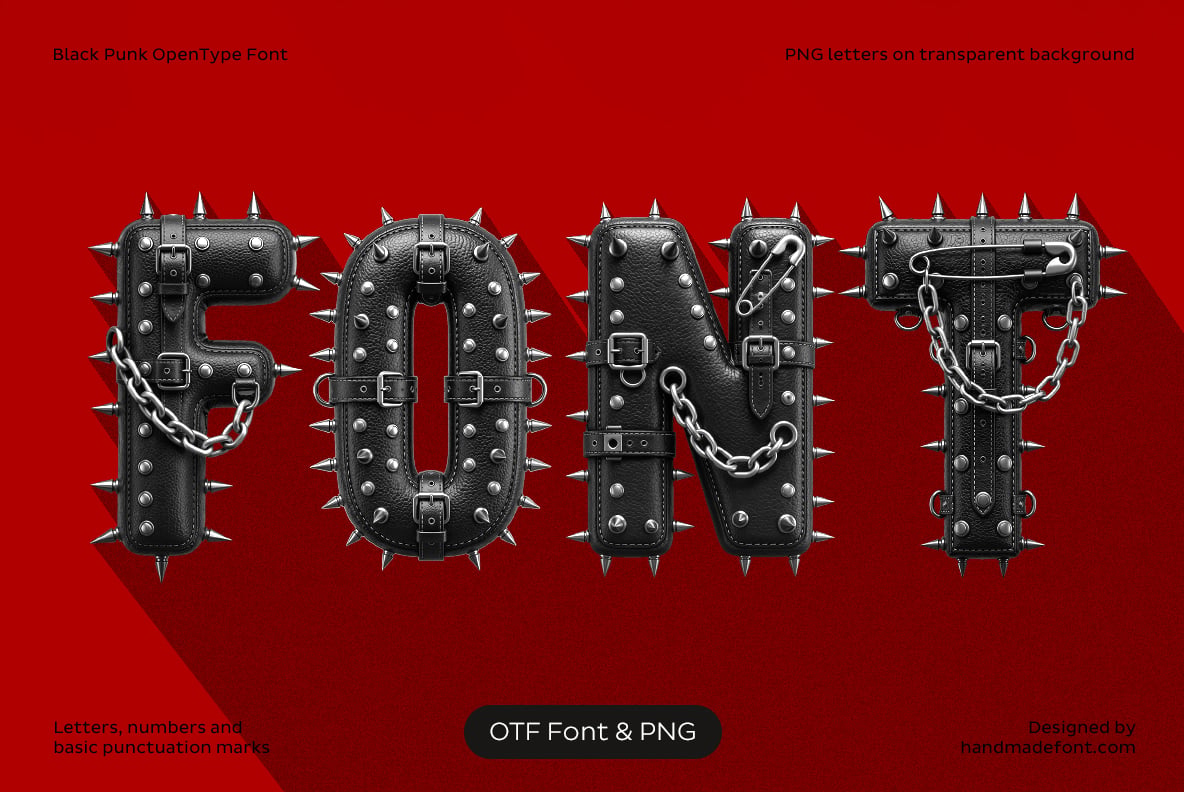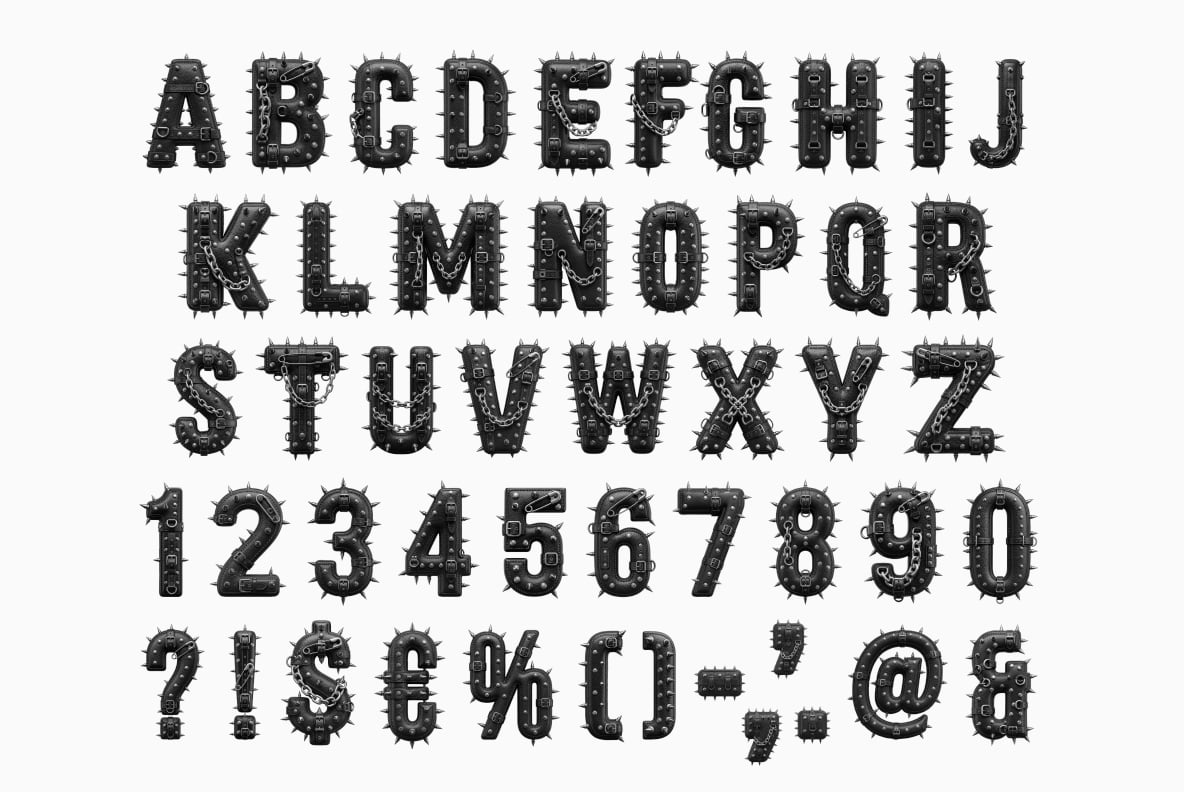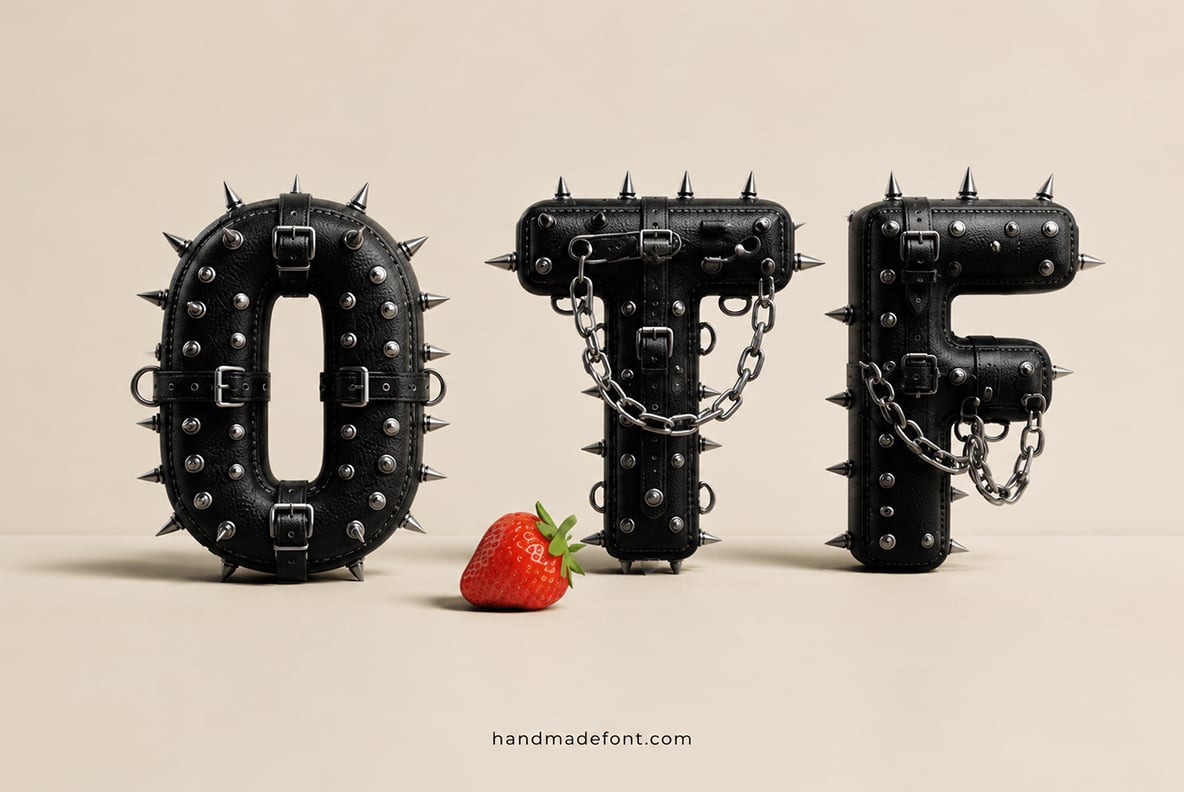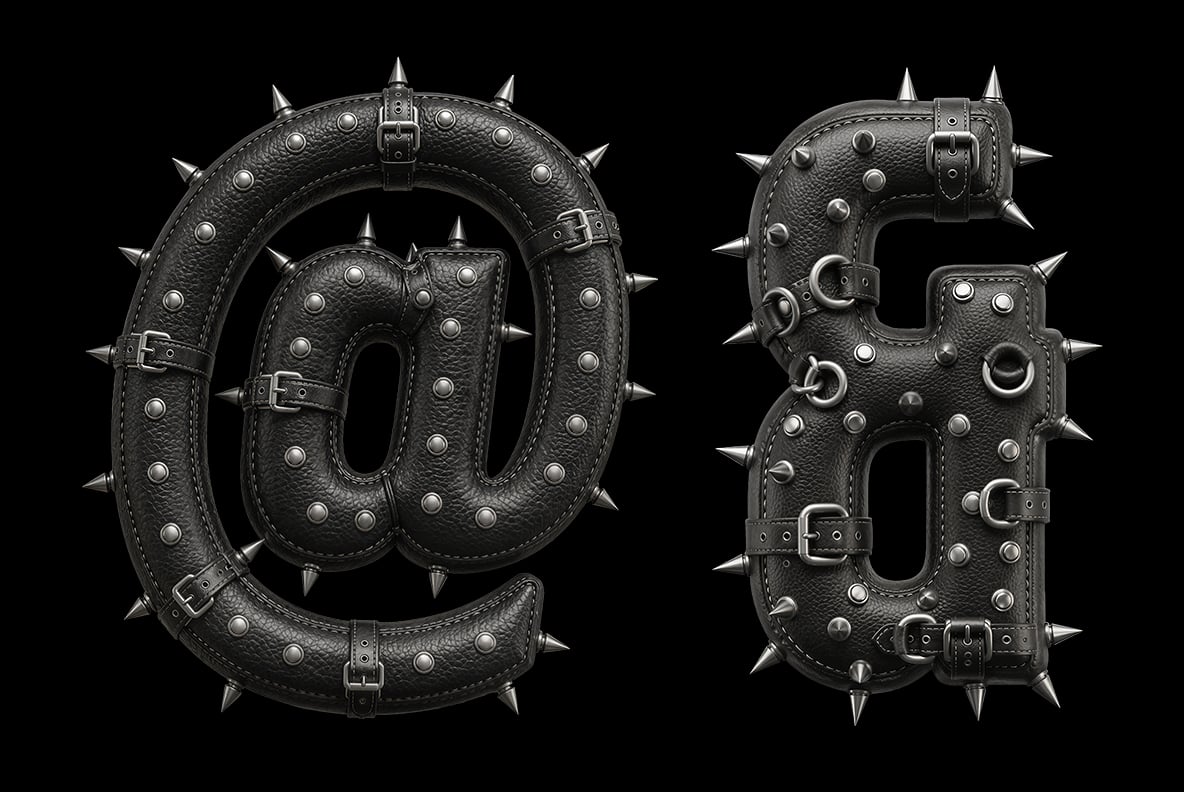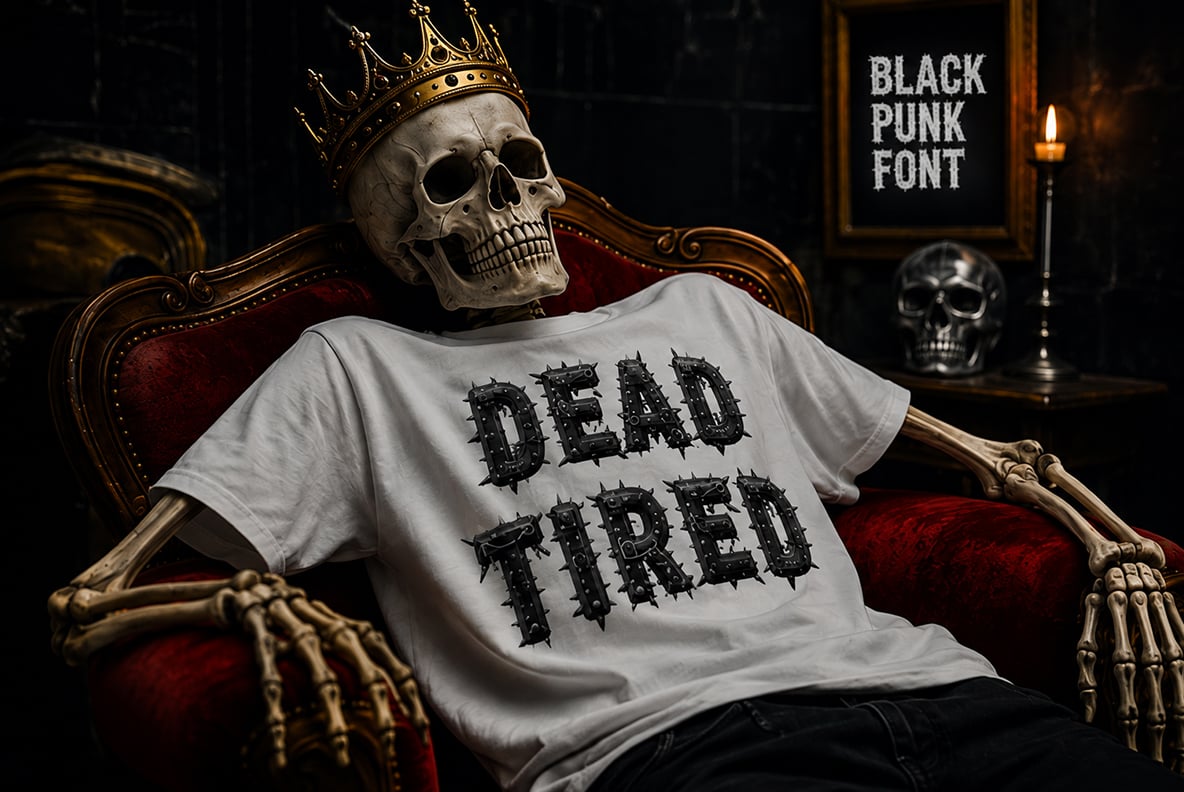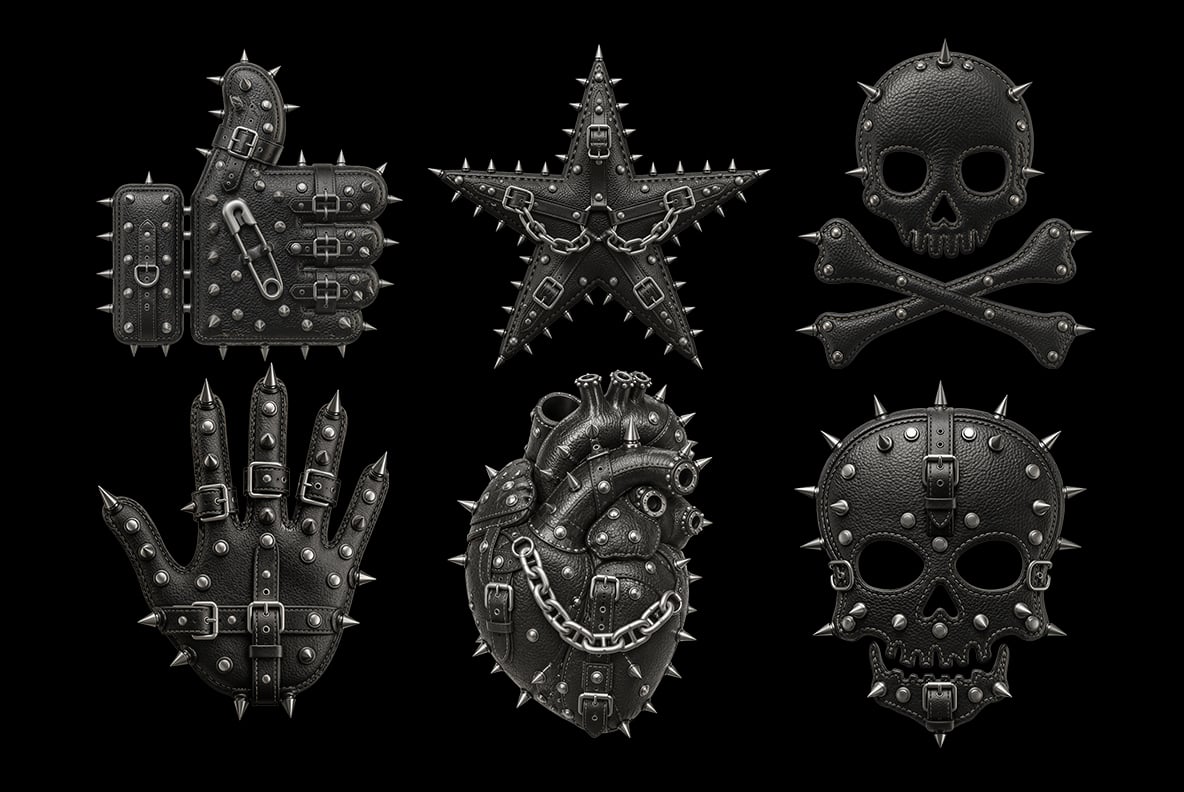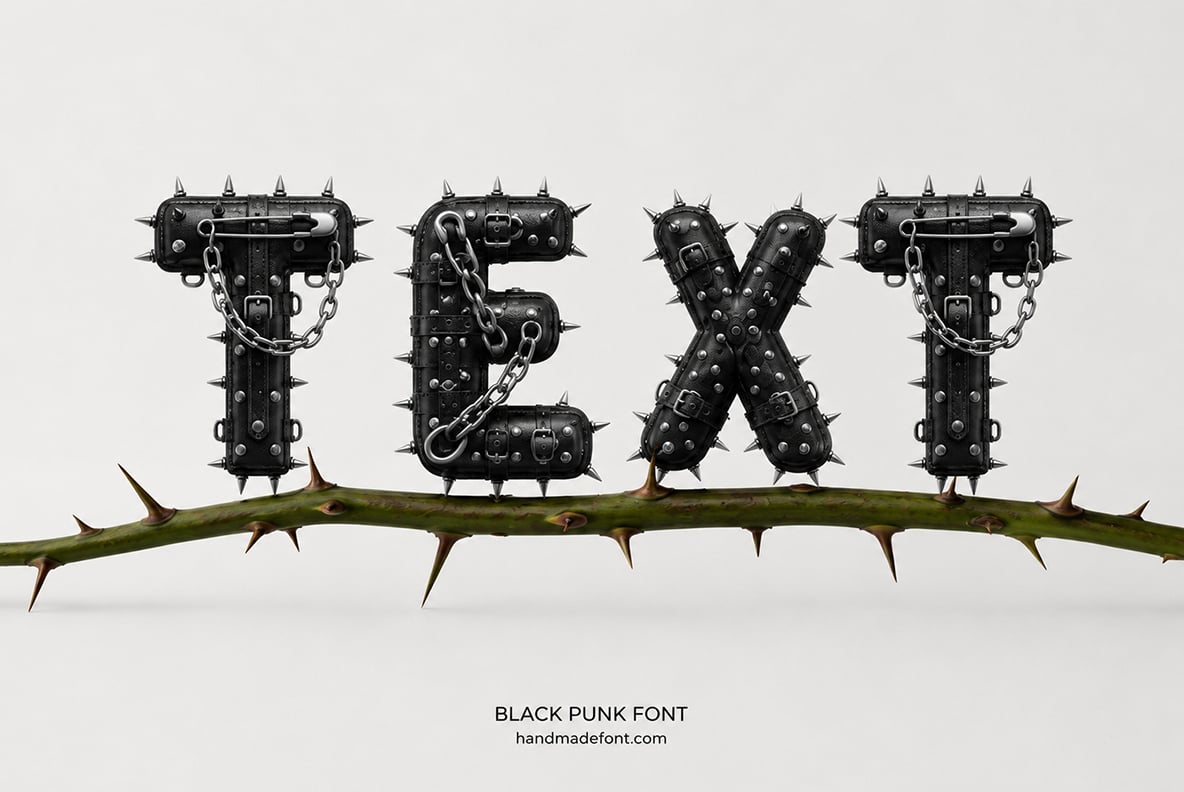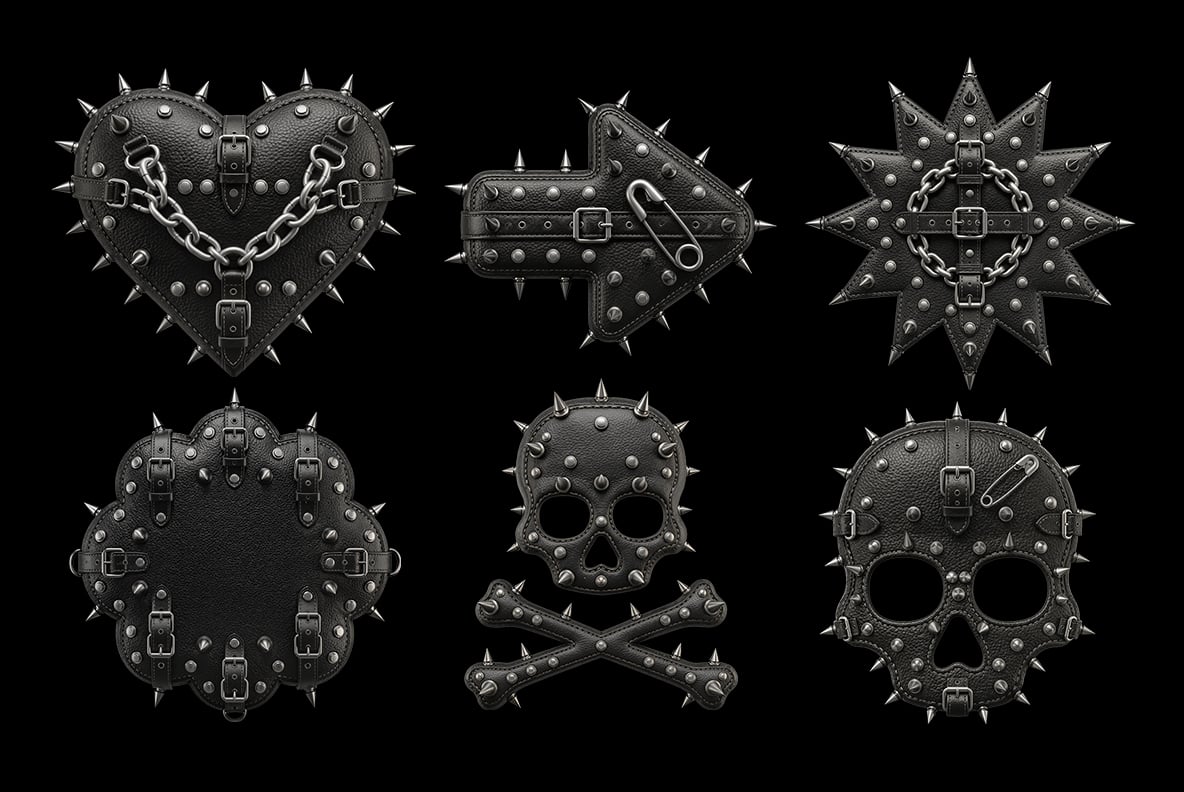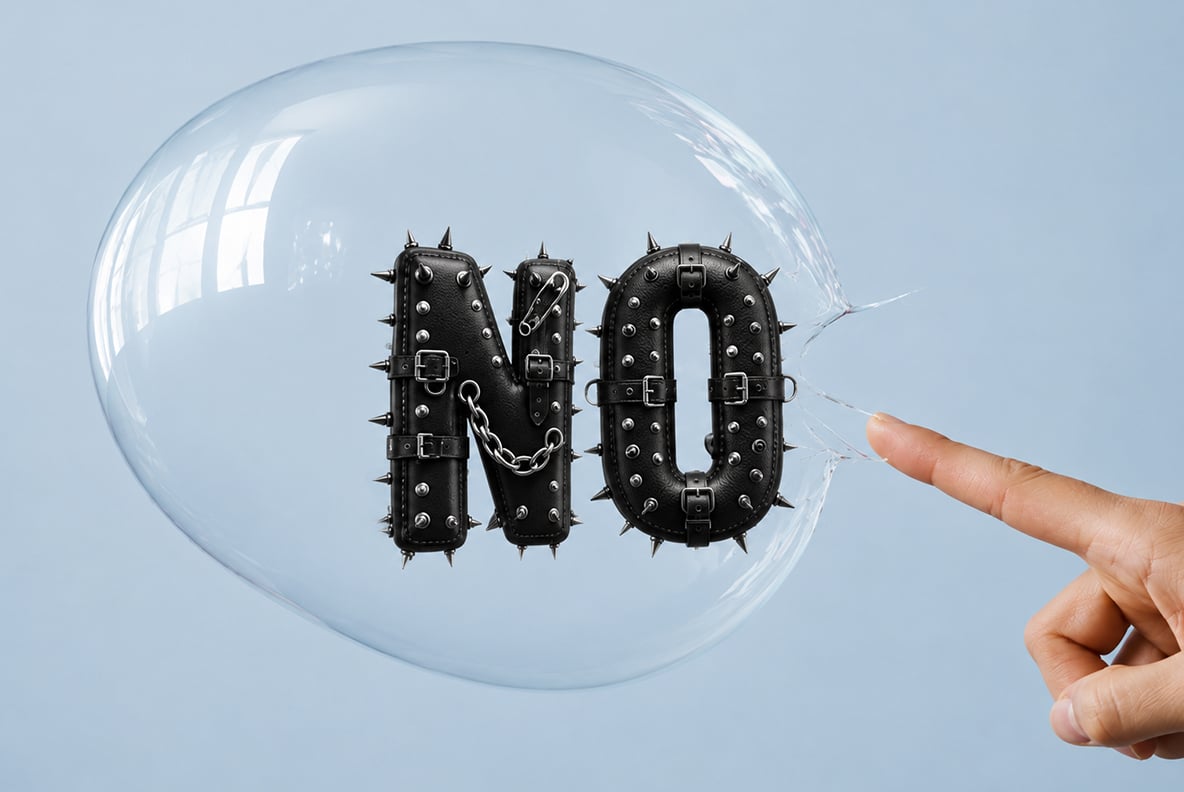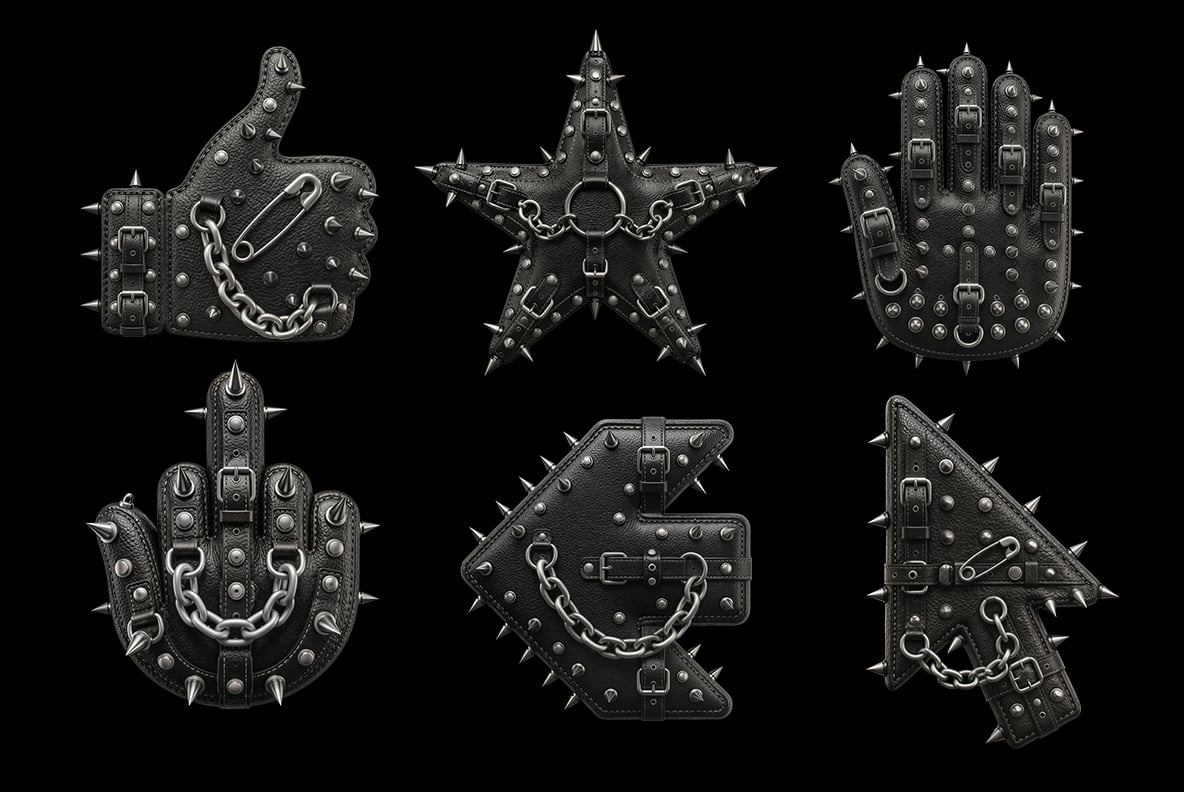
Black Punk Font
Black Punk Font is a bold OpenType typeface inspired by leather, spikes, chains, and underground punk culture. Every character combines handcrafted details with premium textures to create an aggressive yet polished look. The package includes an OTF font for easy installation plus individual PNG letters with transparent backgrounds for limitless creative projects. Perfect for posters, album covers, branding, apparel, packaging, social media, merchandise, logos, gaming, tattoos, stickers, and digital artwork. Black Punk Font delivers striking visual impact while remaining highly versatile for designers, artists, musicians, creators, and anyone seeking fearless typography with authentic rebellious attitude and exceptional production quality throughout.